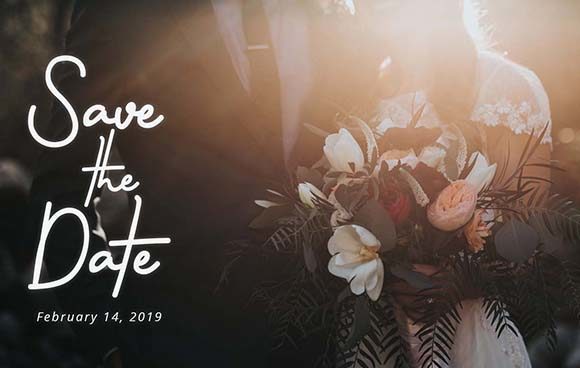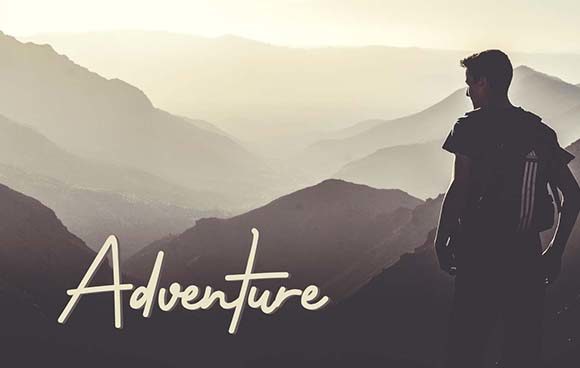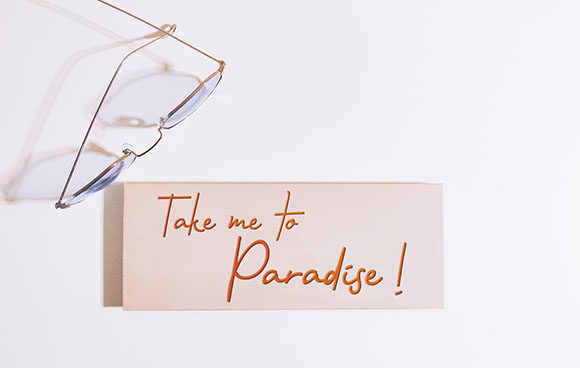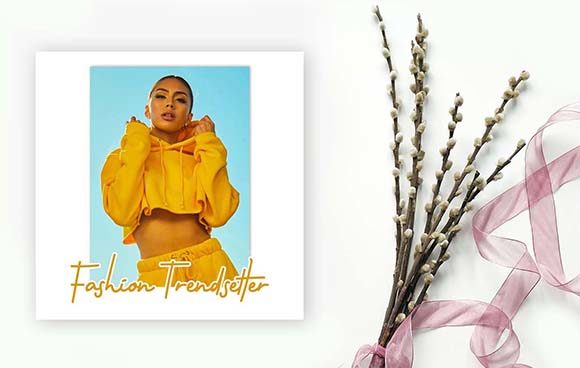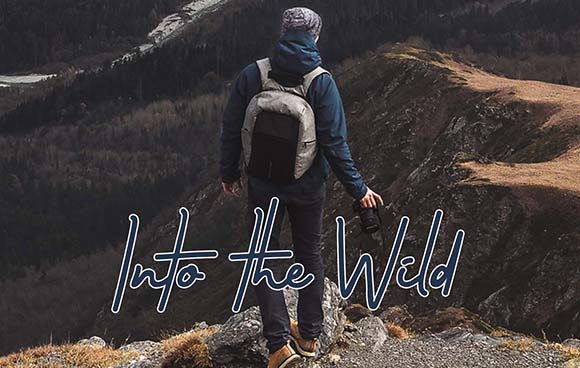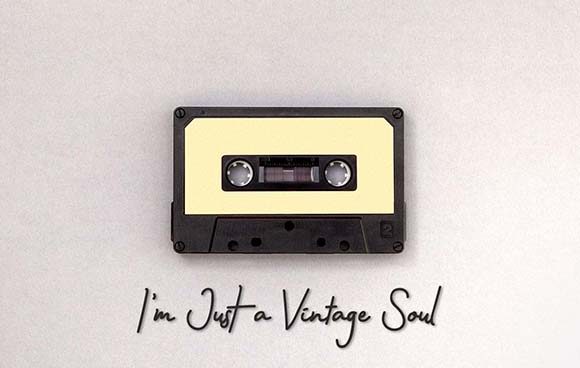
Introduction to Gothenstone Font
There’s something magical about the moment when a design comes together, and you feel like you’ve truly captured the essence of your creative vision. For many designers, this feeling is what drives them to push the boundaries of their craft and strive for perfection. And for those looking to add a personal touch to their designs, there’s one font that stands out from the rest: the Gothenstone Font.
This stunning signature font boasts a natural look that’s perfect for adding a touch of warmth and personality to your creative project. Whether you’re working on a wedding invitation, a birthday card, or a quote for social media, the Gothenstone Font is an excellent choice. With its high-quality design and transparent background, it’s a valuable resource for designers looking to elevate their work and make it truly stand out.
Key Features of Gothenstone Font
- High-quality design resource perfect for creative projects
- Features a transparent background for seamless integration
- Unique characteristics include a modern, sleek design and extensive language support
Honest Review: Gothenstone Font
I recently stumbled upon the Gothenstone Font, and I must say, it’s a great addition to my design resource library. As a designer, I’m always on the lookout for high-quality fonts to elevate my creative projects.
One of the standout features of the Gothenstone Font is its clean and minimalist aesthetic. The font is perfect for creating a sleek and modern look, especially when paired with a transparent background. ✨ The font’s versatility makes it an excellent choice for a wide range of design applications.
Here are some of the things I like about the Gothenstone Font:
- High-quality design: The font is well-crafted and looks great on any screen.
While the Gothenstone Font is a great resource, there are a few limitations to consider:
- Limited font weights: The font only comes in a few weights, which may limit its use in certain design projects. ⚠️
- No bold or italic versions: The font does not include bold or italic versions, which may not be suitable for all design applications.
Overall, I’m impressed with the Gothenstone Font and would recommend it to fellow designers. With its high-quality design and free download, it’s an excellent resource to have in your toolkit.
Tips for Getting the Most Out of the Gothenstone Font
To get the most out of the Gothenstone Font, use it in combination with other design elements, experiment with different font sizes and styles, and consider using a transparent background to create a creative and eye-catching design.
Common Use Cases for the Gothenstone Font
The Gothenstone Font is commonly used in creative projects such as branding, advertising, and graphic design. It is also suitable for use in presentations, documents, and other visual materials where a high-quality and professional-looking font is required.